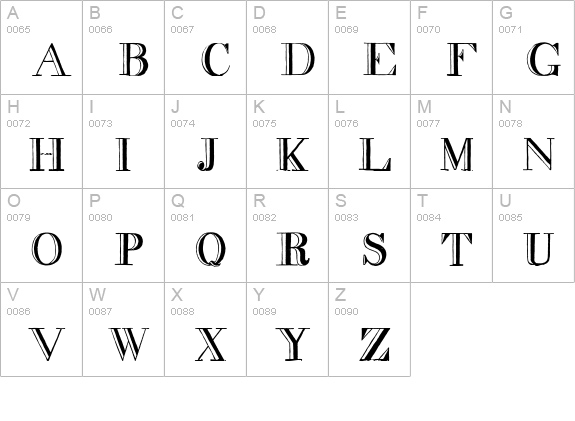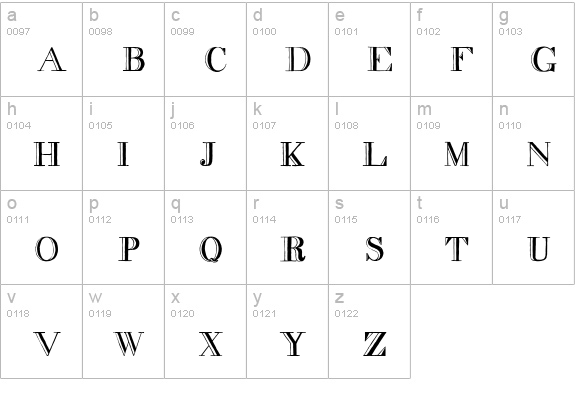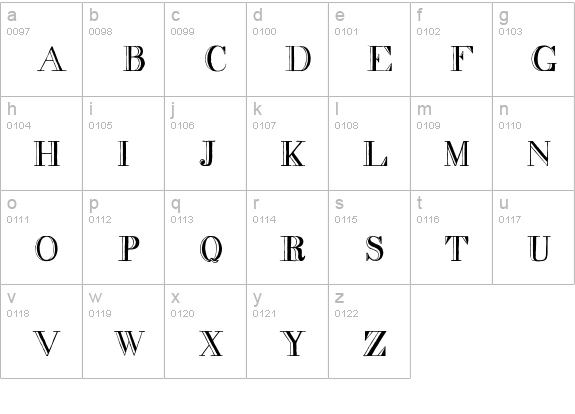
Decadence is a luxurious and elegant font that exudes opulence and sophistication. With its intricate details and graceful curves, this font is perfect for adding a touch of refinement to any project. The intricate design of Decadence captures the essence of indulgence and extravagance, making it a standout choice for those seeking a touch of glamour in their designs. What sets Decadence apart is its ability to evoke a sense of grandeur and decadence without being over the top. The font strikes the perfect balance between sophistication and subtlety, making it a versatile choice for a wide range of projects. Whether you're working on a wedding invitation, a high-end brand logo, or a stylish editorial layout, Decadence is sure to elevate your design to the next level. Best of all, Decadence is freely available to download at FontsMarket.com. So you can add a touch of luxury to your projects without breaking the bank. Don't miss out on the opportunity to elevate your designs with this exquisite font!